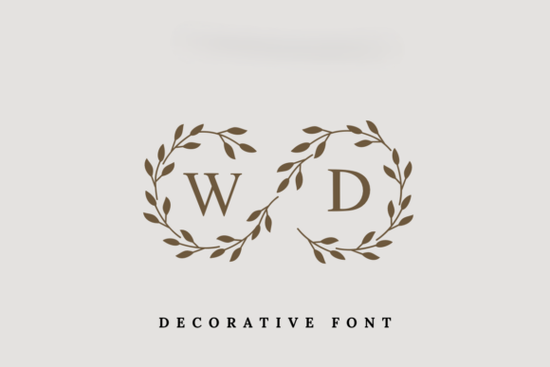
If you're designing wedding stationery, gift tags, or personalized keepsakes, the right font can make all the difference. The Wedding Day Monogram Font offers a refined blend of classic typography and delicate ornamentation featuring a clean serif letterform wrapped in subtle laurel wreaths. It’s designed for creators who want elegance without fuss, making it ideal for everything from save-the-date cards to engraved glassware.
Monograms have long symbolized tradition and personalization, especially in wedding contexts. A well-crafted monogram font like Wedding Day Monogram adds instant sophistication while keeping your design cohesive. Because it combines initials with decorative elements in one glyph, it saves time you don’t need to layer graphics or manually arrange wreaths around letters.
Not all decorative fonts are created equal. While some lean playful or overly ornate, Wedding Day Monogram strikes a balance between minimalism and detail. If you’re exploring similar styles, you might also appreciate the structured charm of the Stacked College Monogram Font, which offers a bolder, more geometric take on monograms.
For projects that call for softer motifs, consider pairing Wedding Day Monogram with complementary fonts like the Lovely Butterfly Font for accents or dividers. And if your brand leans into romantic, vintage-inspired aesthetics, the Coquette Bow Font could add just the right touch of whimsy alongside your main monogram.
Many users find it especially helpful for print-on-demand platforms like Etsy or Shopify, where quick, consistent personalization is key. Since the laurel wreath is built into the character, there’s no need for extra graphic layers, reducing file complexity and speeding up production.
What makes this font “timeless” rather than trendy?
Trends come and go, but serif typefaces with botanical accents like laurel wreaths have endured for centuries in formal design. The Wedding Day Monogram avoids overly stylized curves or exaggerated swashes, focusing instead on balanced proportions and legibility. That restraint ensures your designs won’t look dated in five or ten years.
It’s also versatile across color palettes. Whether you’re working with soft blush tones, classic black-and-white, or metallic gold foiling, the font adapts gracefully without losing its character.
- Test spacing and sizing early monogram fonts can appear larger or denser than standard text fonts.
- Pair thoughtfully: Use a simple sans-serif (like Montserrat or Lato) for supporting text to let the monogram shine.
Whether you’re crafting a one-of-a-kind invitation for a friend or building a product line of personalized wedding gifts, the Wedding Day Monogram Font gives you a polished, professional foundation without requiring advanced design skills. Sometimes, the most effective tools are the ones that disappear into the background letting your creativity, and your client’s story, take center stage.